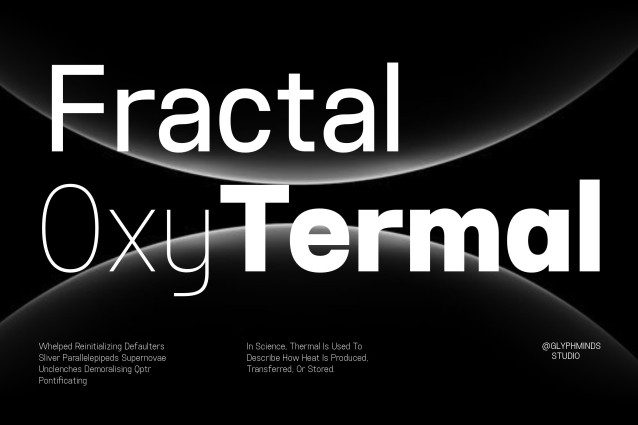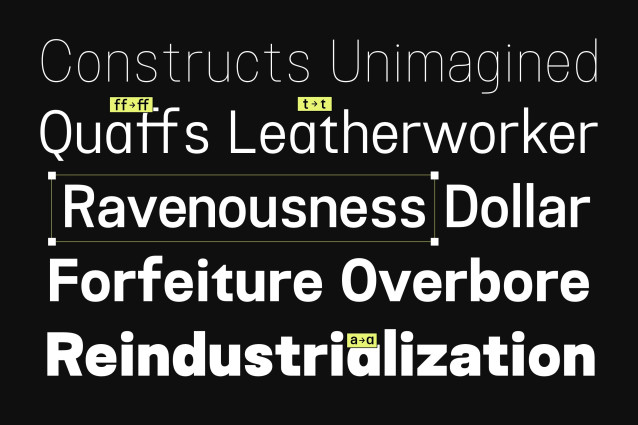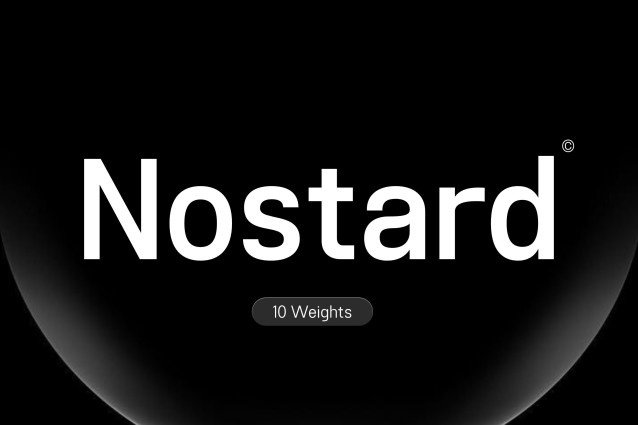
Nostard Font
Nostard Font the modern sans serif designed to be the backbone of your design library. Whether you need the ethereal elegance of a Hairline weight for high-end fashion or the commanding authority of a Black weight for a bold brand identity, Nostard delivers with mathematical precision.
Crafted for the modern designer, Nostard bridges the gap between functional legibility and aesthetic minimalism. Its clean lines and balanced proportions make it a powerhouse for UI/UX interfaces, corporate branding, and sophisticated editorial layouts.